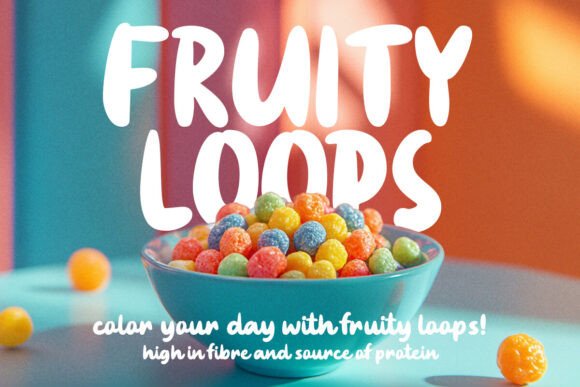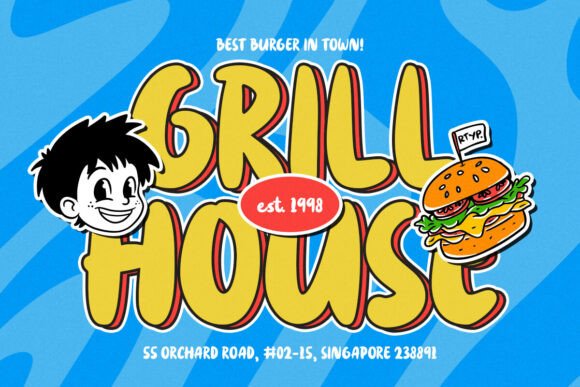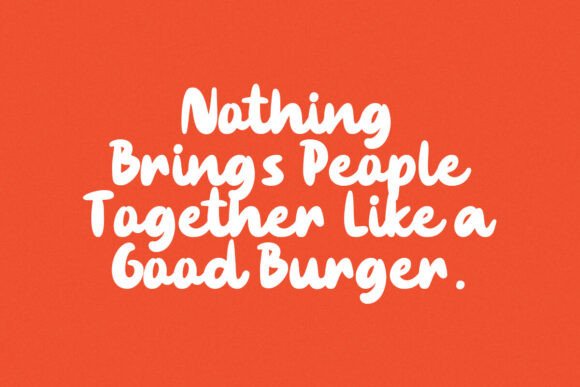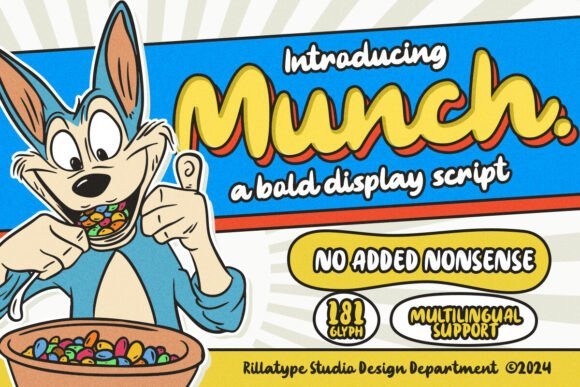
Introduction to Munch Font
Munch is a bold handwritten script font designed to bring a playful and fun vibe to any project.
Inspired by cereal packaging with vibrant colors, Munch offers a unique, energetic style that’s perfect for food branding, children’s products, and creative posters Equipped with 181 glyphs and multilingual support, this font is an ideal choice for global design needs.
Key Features of Munch Font